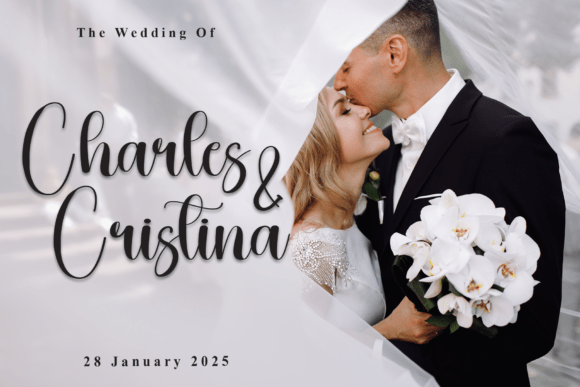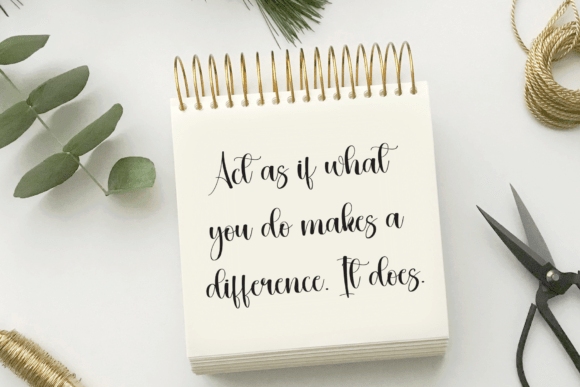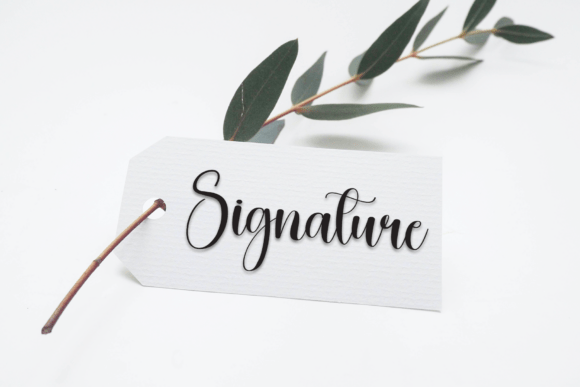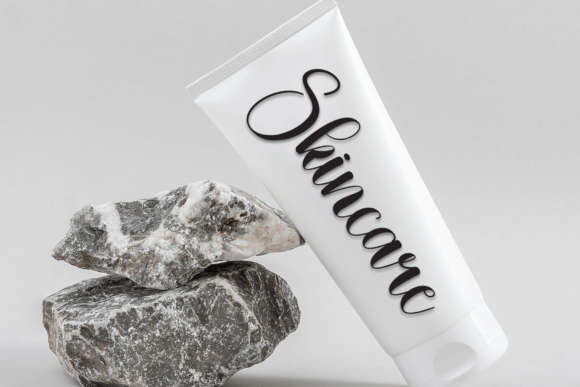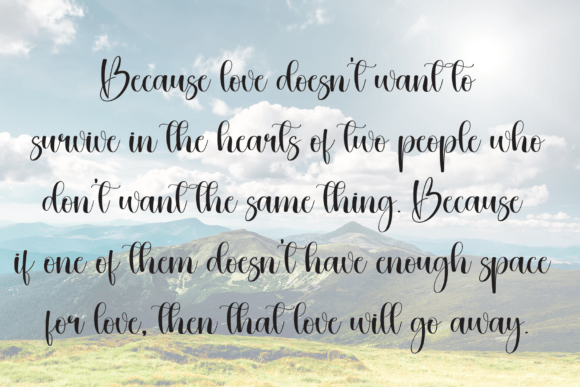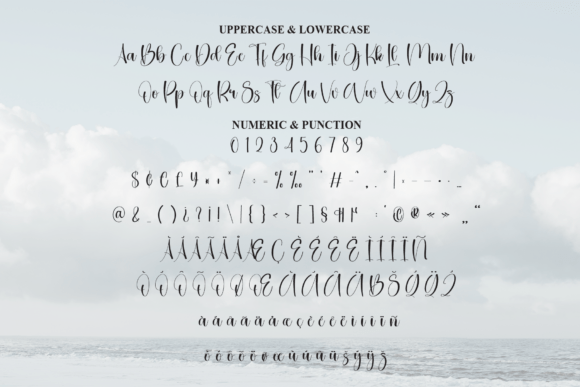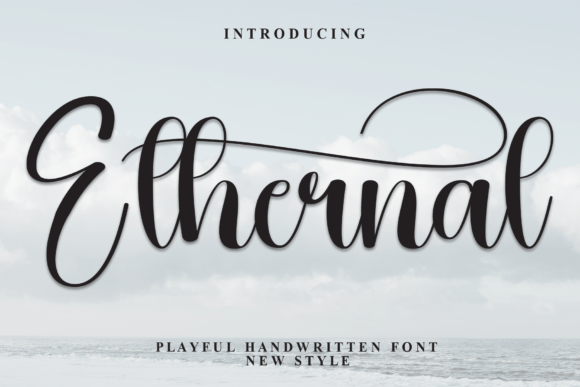
Introducing Ethernal Font: Elevate Your Designs with Elegance and Playfulness
In the world of typography, fonts play a crucial role in conveying the tone and personality of a design. For designers and crafters seeking a script font that exudes elegance, sophistication, and a touch of playfulness, Ethernal Font is an exceptional choice. This beautiful, flowing script font is designed to add a charming and refined touch to various design projects, making it perfect for branding, wedding invitations, social media graphics, and feminine designs.
The Essence of Ethernal Font
Ethernal is a meticulously crafted script font that boasts smooth curves and stylish swashes, giving it a unique and captivating appearance. Its elegant flow and refined lines make it an ideal choice for designs that require a touch of sophistication and luxury. Whether you’re creating a romantic logo, a chic product label, or an eye-catching social media graphic, Ethernal Font is sure to elevate your design to the next level.
Key Features of Ethernal Font
- Flowing Script Style: Ethernal features a beautiful, flowing script style that adds a touch of elegance and sophistication to any design.
- Playful yet Sophisticated: The font’s playful curves and stylish swashes make it perfect for designs that require a balance of fun and refinement.
- Versatile: Ethernal Font is suitable for a wide range of design projects, including branding, wedding invitations, social media graphics, and feminine designs.
- Easy to Read: Despite its elegant and cursive nature, Ethernal Font remains highly legible, making it perfect for body text and headlines.
Uses of Ethernal Font
Ethernal Font’s versatility makes it an excellent choice for various design applications. Here are some of the ways you can use this beautiful script font:
- Branding: Create a lasting impression with Ethernal Font by incorporating it into your logo, business cards, and packaging designs.
- Wedding Invitations: Add a touch of romance and elegance to your wedding invitations, save-the-date cards, and other wedding-related designs.
- Social Media Graphics: Elevate your social media presence with eye-catching graphics, quotes, and promotional materials featuring Ethernal Font.
- Feminine Designs: Create beautiful and feminine designs for fashion brands, beauty products, and lifestyle blogs.
Tips for Using Ethernal Font
To get the most out of Ethernal Font, here are some tips to keep in mind:
- Pair with Neutral Colors: Pair Ethernal Font with neutral colors like white, beige, or pastel shades to create a soft and elegant look.
- Experiment with Swashes: Take advantage of Ethernal Font’s stylish swashes to add a touch of personality to your designs.
- Use for Headlines and Titles: Use Ethernal Font for headlines and titles to add a touch of sophistication and elegance to your designs.
In conclusion, Ethernal Font is a beautiful and elegant script font that is perfect for designers and crafters seeking to add a touch of sophistication and playfulness to their designs. Its flowing curves, stylish swashes, and versatile nature make it an excellent choice for a wide range of design projects. Whether you’re creating a romantic logo, a chic product label, or an eye-catching social media graphic, Ethernal Font is sure to elevate your design to the next level.